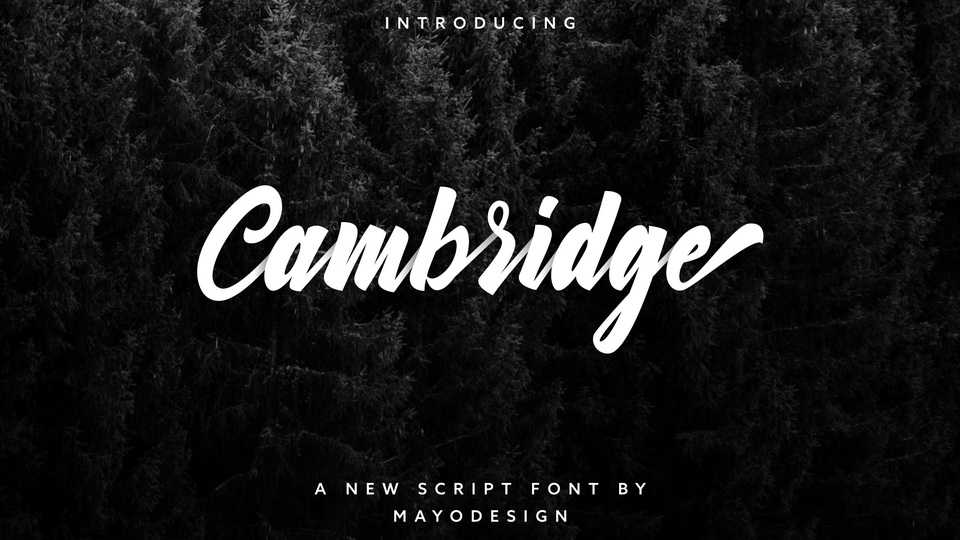
Download Cambridge font, a modern calligraphy script with a natural flow. Cambridge font is perfect for logotypes, apparel, invitations, branding, packaging, advertising, etc.
Designer: Mayodesign